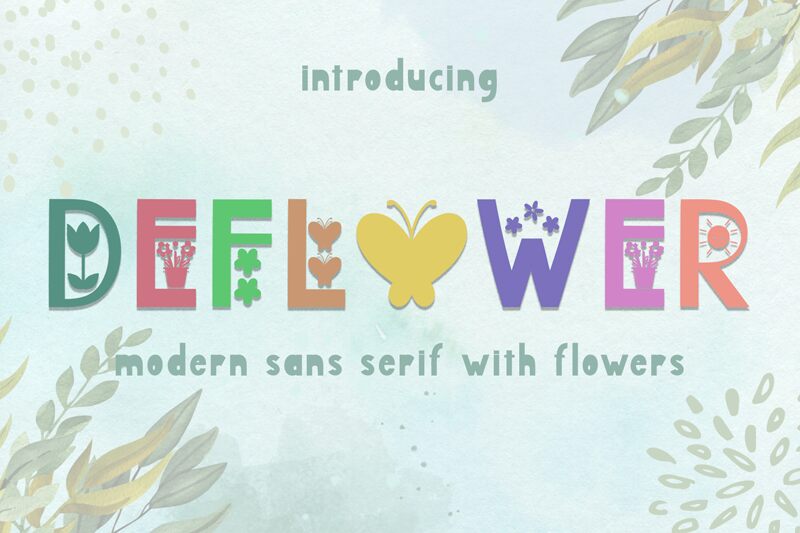
Deflower
Deflower, a captivating display font crafted by Yoga Letter, embodies a bold and condensed aesthetic. This decorative typeface effortlessly commands attention with its striking, floral-inspired letterforms. The sharp, angular edges and dynamic negative space create a sense of movement and energy, exuding a distinctly modern and edgy vibe. Deflower's unique character lends itself to applications where a strong visual impact is desired, evoking a sense of passion and vitality.
The versatility of Deflower makes it a compelling choice for a wide range of design projects. Its bold, condensed form ensures legibility in both digital and print mediums, making it an excellent selection for headlines, logos, and display typography. Deflower's decorative flair also lends itself well to branding, packaging, and editorial design, where a visually striking typeface can elevate the overall aesthetic.